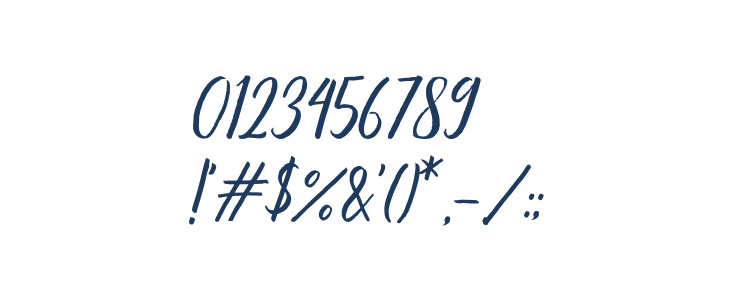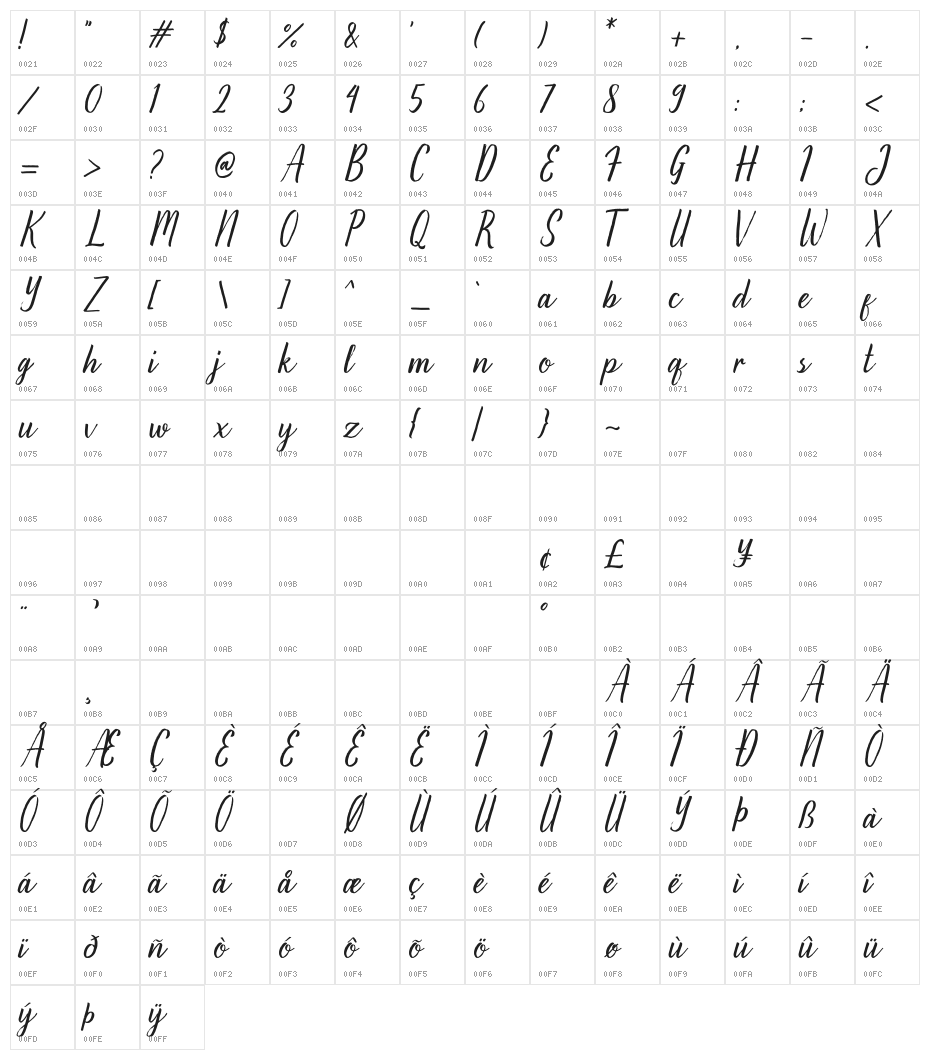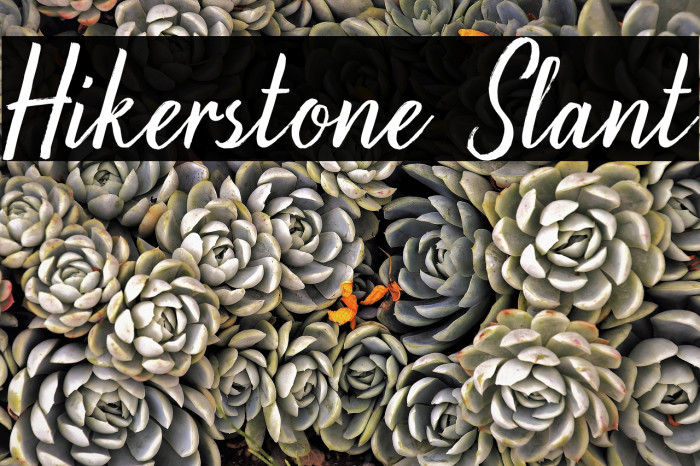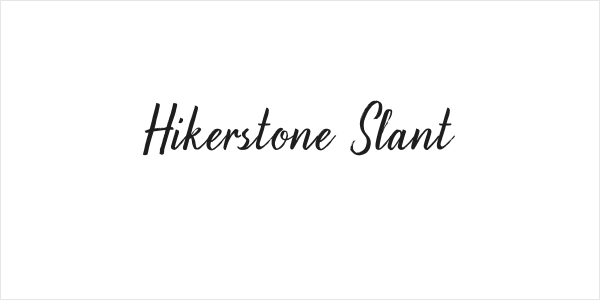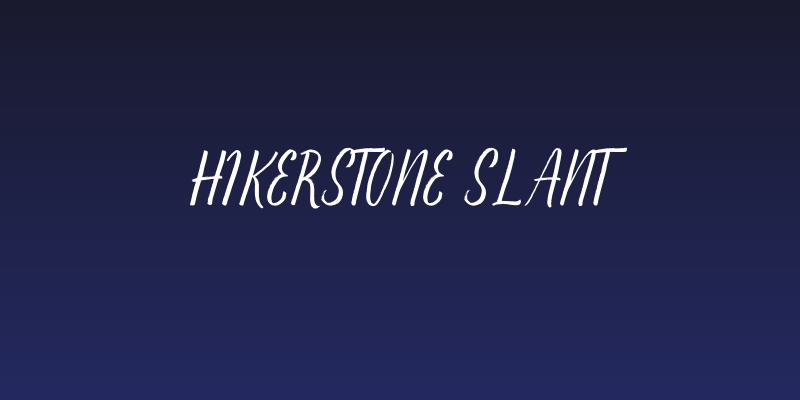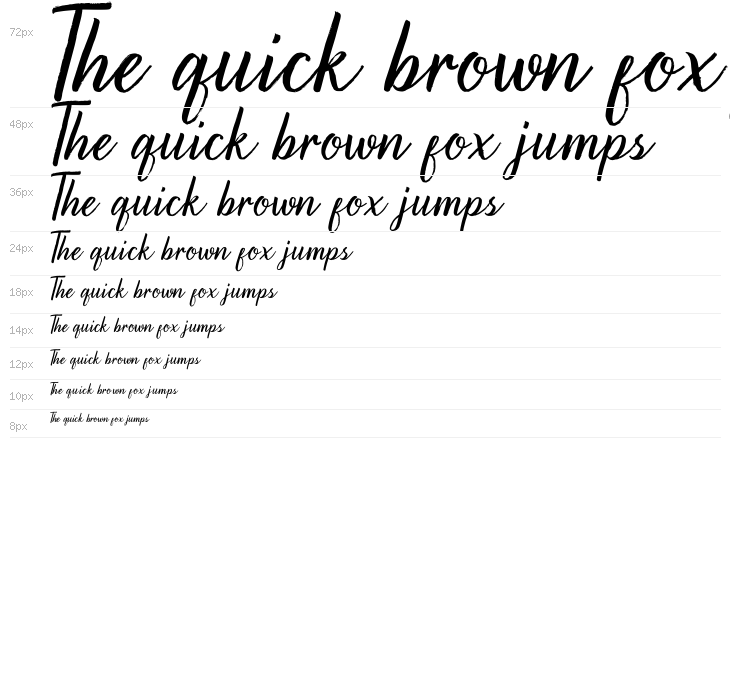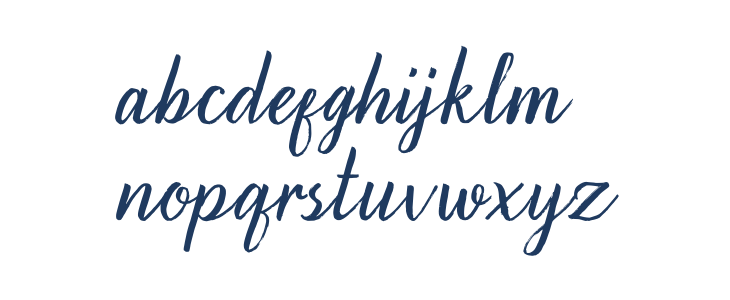
Hikerstone Slant Font
Hikerstone Slant Description
This font features a dynamic and expressive style with a slanted, handwritten appearance. The uppercase letters are tall and slender, with a noticeable forward slant that adds a sense of movement and energy. The lowercase letters maintain a consistent flow, with smooth curves and a slightly condensed form. The numbers are clear and legible, matching the overall aesthetic with their elegant curves. Special characters are designed to complement the letters, maintaining the same slanted and fluid style. The font's brush-like strokes give it a casual yet sophisticated look, making it suitable for a variety of creative projects.